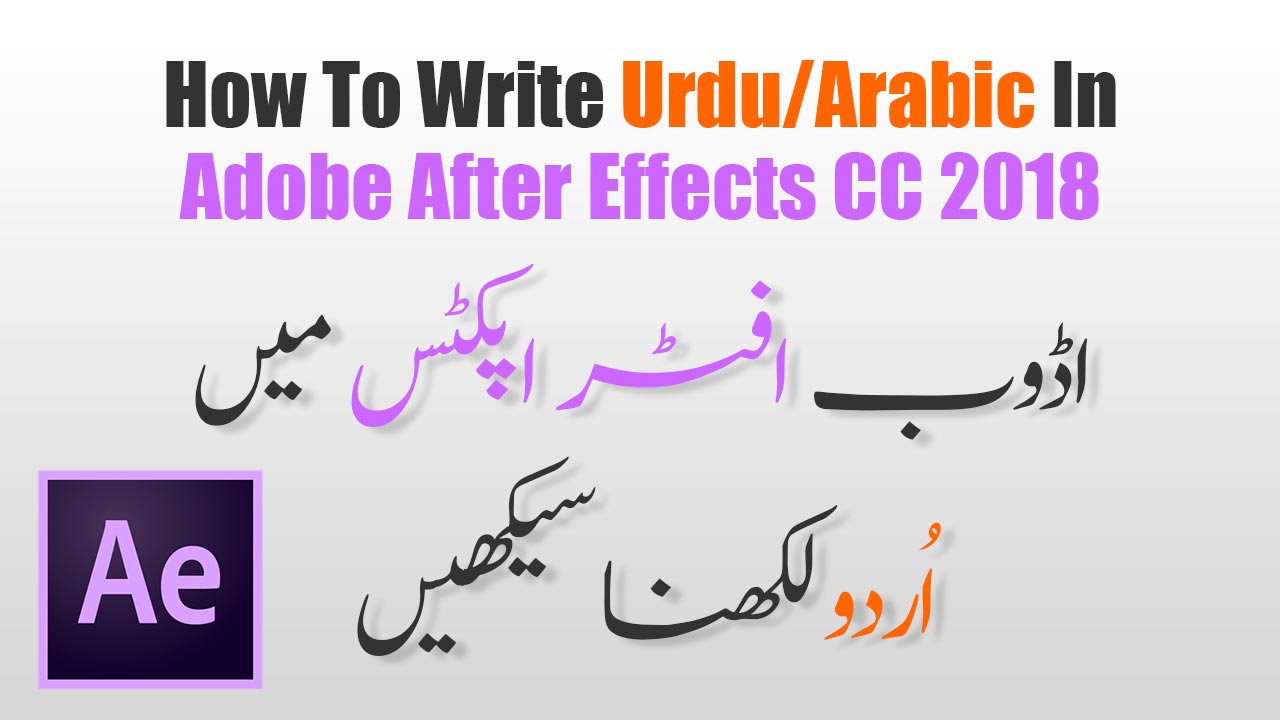
List Of How To Write Urdu Font In Photoshop For Art Design, It is writing in urdu now in your photoshop. How do i export in photoshop 7?
Now open photoshop and go to edit> preferences> type. Go to “type” tool on the top of the page. Now click on it with help of text tool and start writing in urdu. Now open the photoshop and open the template from there which is in urdu format and select urdu as shown in picture below.
In type options you have to click on the “language options” and click on “middle eastern features”. We have the best urdu, arabic and farsi fonts available to download. After installing pak urdu installer you need some fonts to write styling words or sentence in urdu. Now open the photoshop and open the template from there which is in urdu format and select urdu as shown in picture below.
The latest photoshop cc has the middle eastern text engine, so no need for a separate middle eastern version, like there was in cs5 and before. We have the best urdu, arabic and farsi fonts available to download. Now from the right corner of “en” option select urdu. When it restarts, go to type menu>language options. How to type Urdu in Adobe 7.0 Urdu Writing in Adobe.
To write urdu in adobe photoshop you will need urdu writing tool which is pak urdu installer. Saad font is a type of calligraphy that often used to write urdu. I hope this trick is useful for you.if you think i. Inpage is still widely used in the industry but unicode urdu is also getting popular, with unicode you don’t need any software or. How Write Urdu Text In Adobe After Effects CC 2018 MTC Tutorials.
Urdu font for photoshop how to write urdu; Get car vacuum cleaners, car detailing kits, car dash cams, and so much more. Akhtar is an excellent font for urdu it is beautiful easy to read. In type options you have to click on the “language options” and click on “middle eastern features”. How to write urdu in without any software/ font (Updated 2020.
When it restarts, go to type menu>language options. Next, you'll have to restart photoshop. Small business accounting software free online waveapp part 1/2. To write urdu in adobe photoshop you will need urdu writing tool which is pak urdu installer. How To Write Urdu In 7.00 YouTube.
Saad font is a type of calligraphy that often used to write urdu. How to write urdu and arabic in photoshop cs6 for many years we have used inpage to write urdu and to create graphics with urdu text. We are here to provide you the free download of urdu font designs. Urdu font for photoshop how to write urdu; How to type Urdu Poetry Post in 7.0 YouTube.
It has a classic, elegant feel that makes it ideal for professional designs. Saad font is a type of calligraphy that often used to write urdu. Urdu font for photoshop how to write urdu; You can acknowledge this website as a distinctive web site that allows you with a free How To Write Urdu Text Inpage into Adobe CS5 YouTube.
Now Go To Type>Language Options>Middle Eastern Features.
The latest photoshop cc has the middle eastern text engine, so no need for a separate middle eastern version, like there was in cs5 and before. To write urdu in adobe photoshop you will need urdu writing tool which is pak urdu installer. Next, you'll have to restart photoshop. How can i write urdu in page?